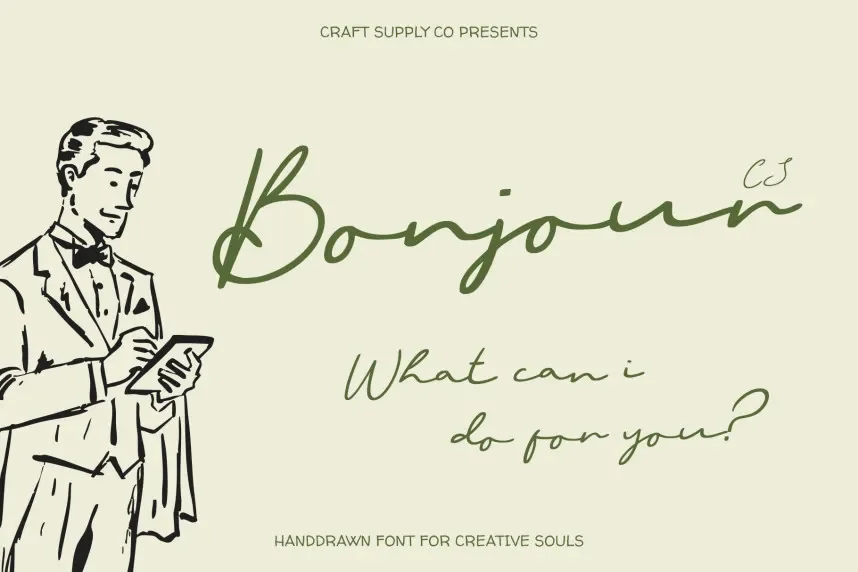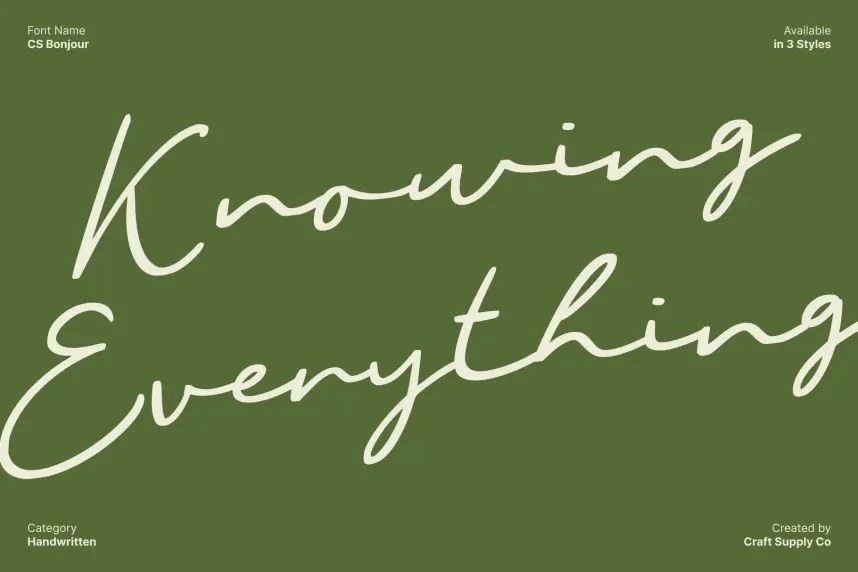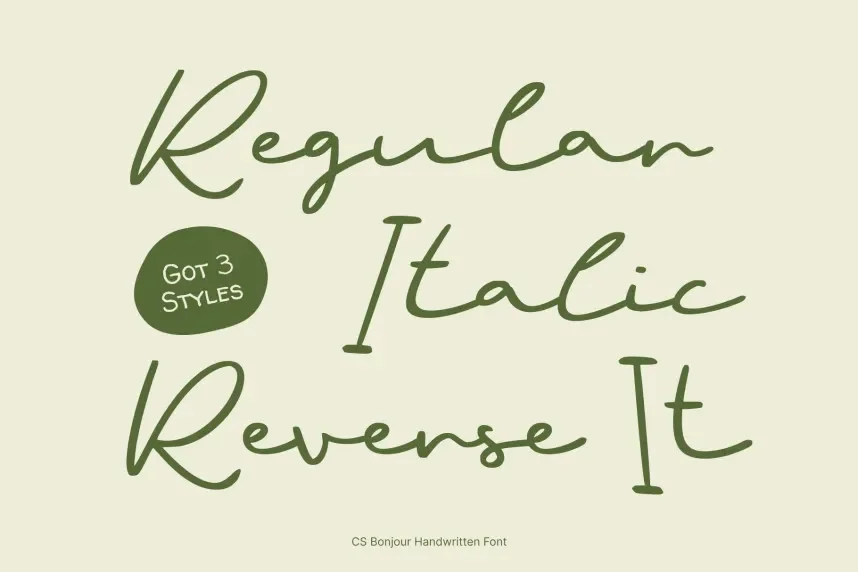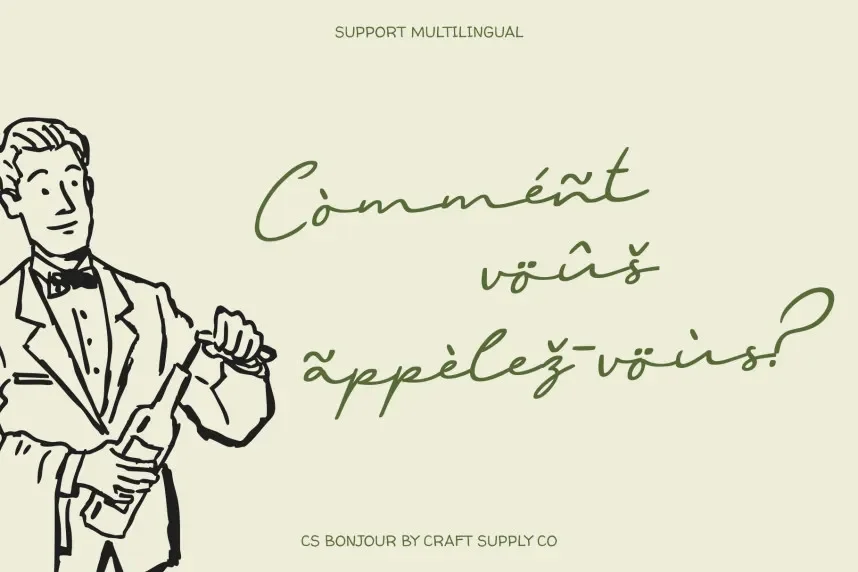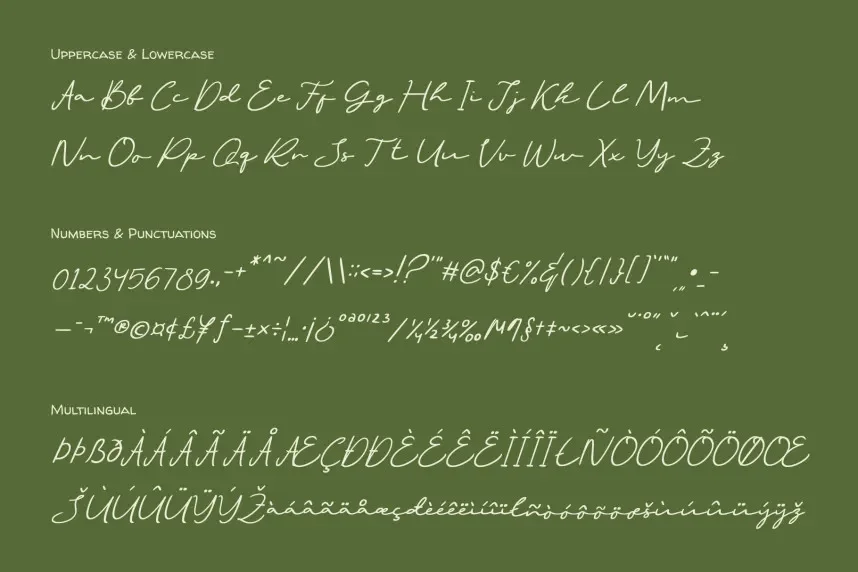
CS Bonjour Font addresses a common branding issue: adding handwritten character without sacrificing legibility. Many script fonts become hard to read in logos, invitations, or social media graphics when strokes are inconsistent or overly decorative.
CS Bonjour is a script typeface with smooth curves, moderate stroke contrast, and controlled connections between letters. The letterforms keep a natural handwritten flow while maintaining stable spacing. Swashes are limited, which helps short phrases remain clear at small sizes.